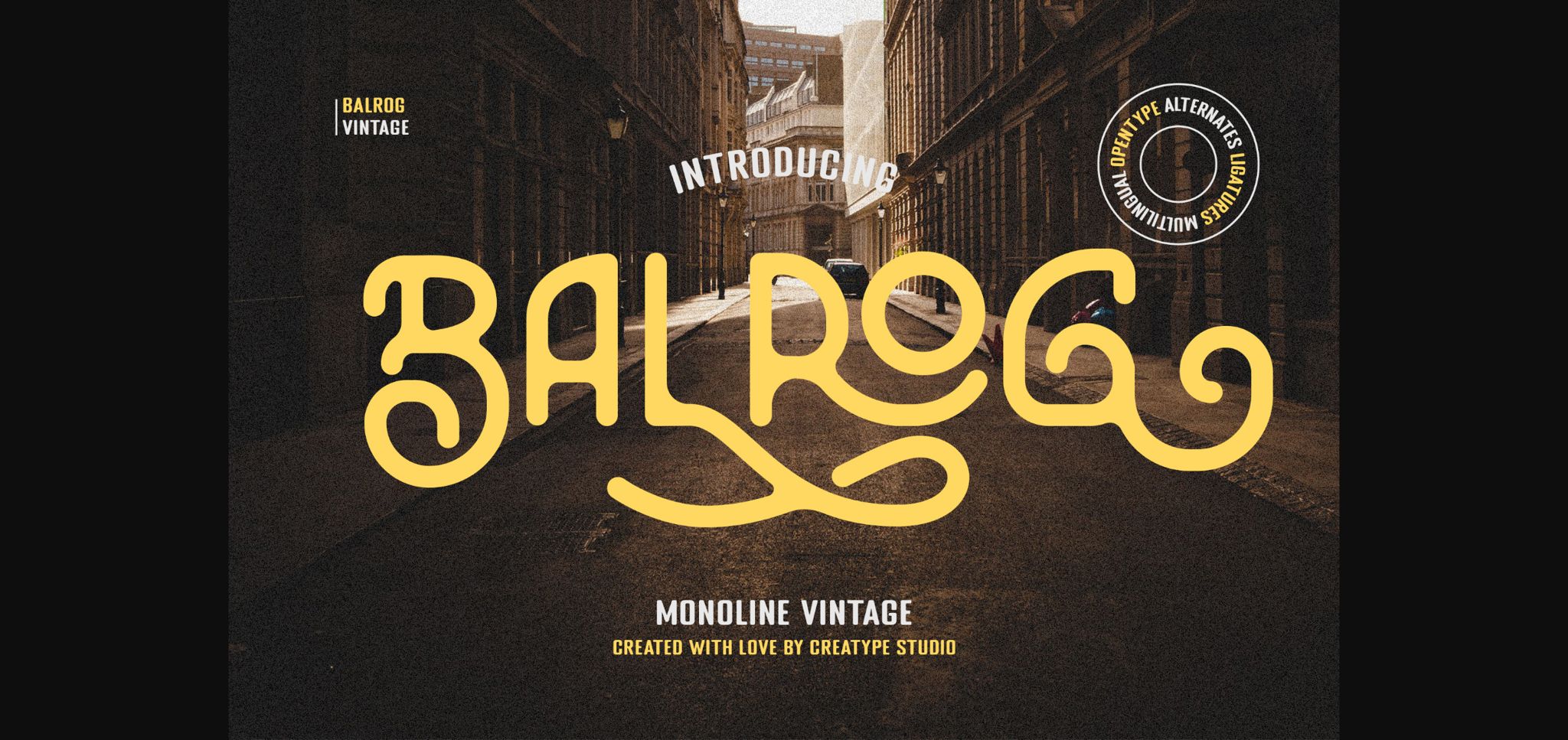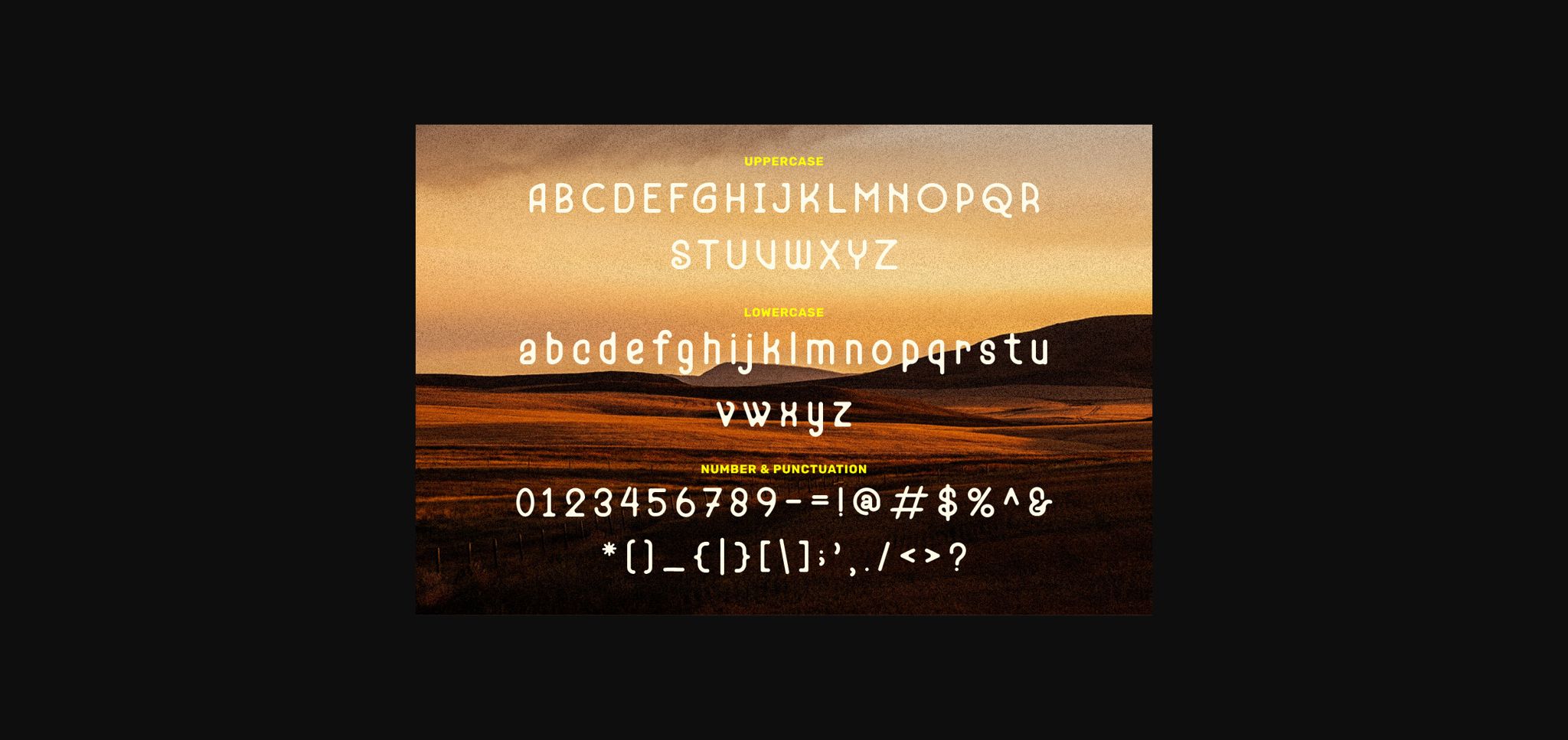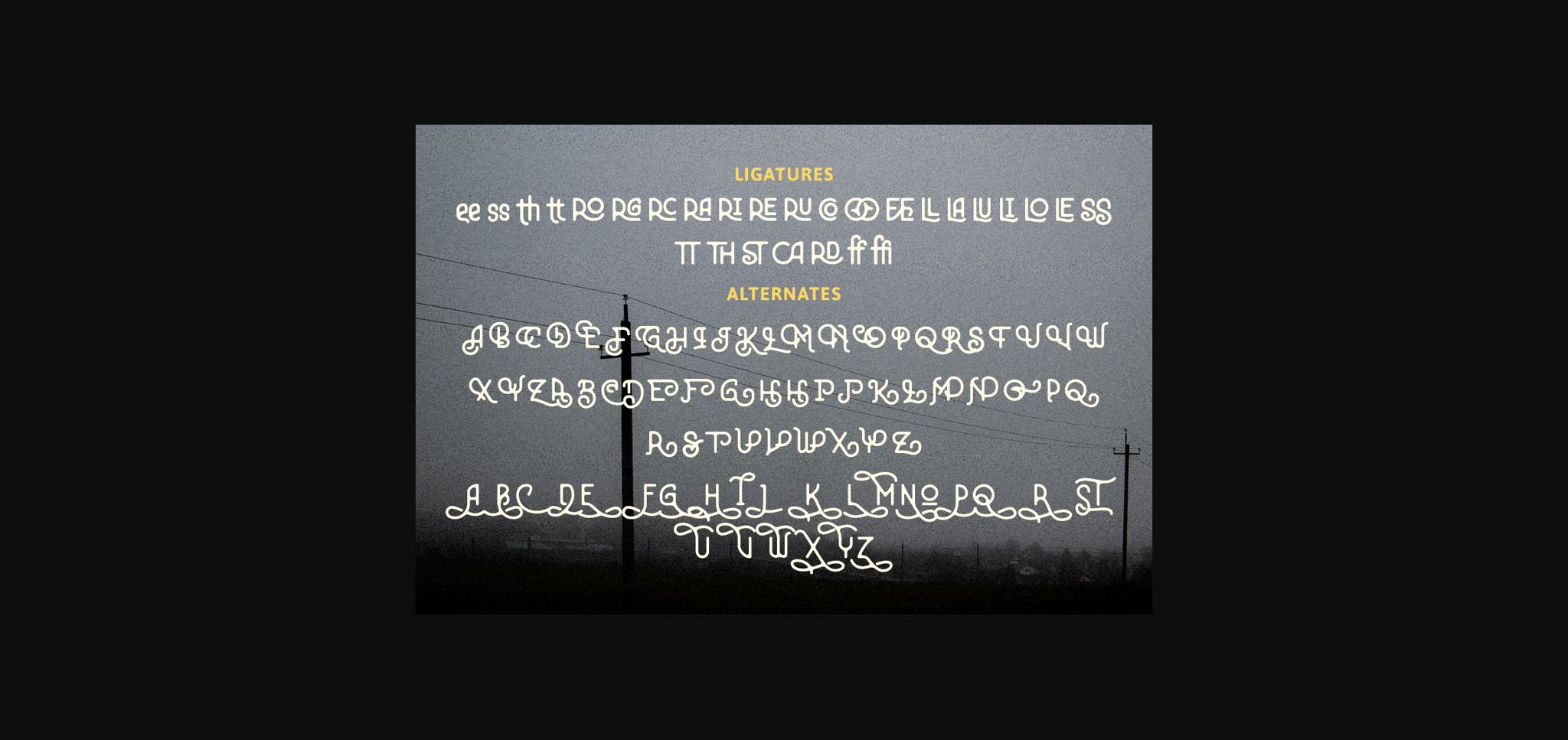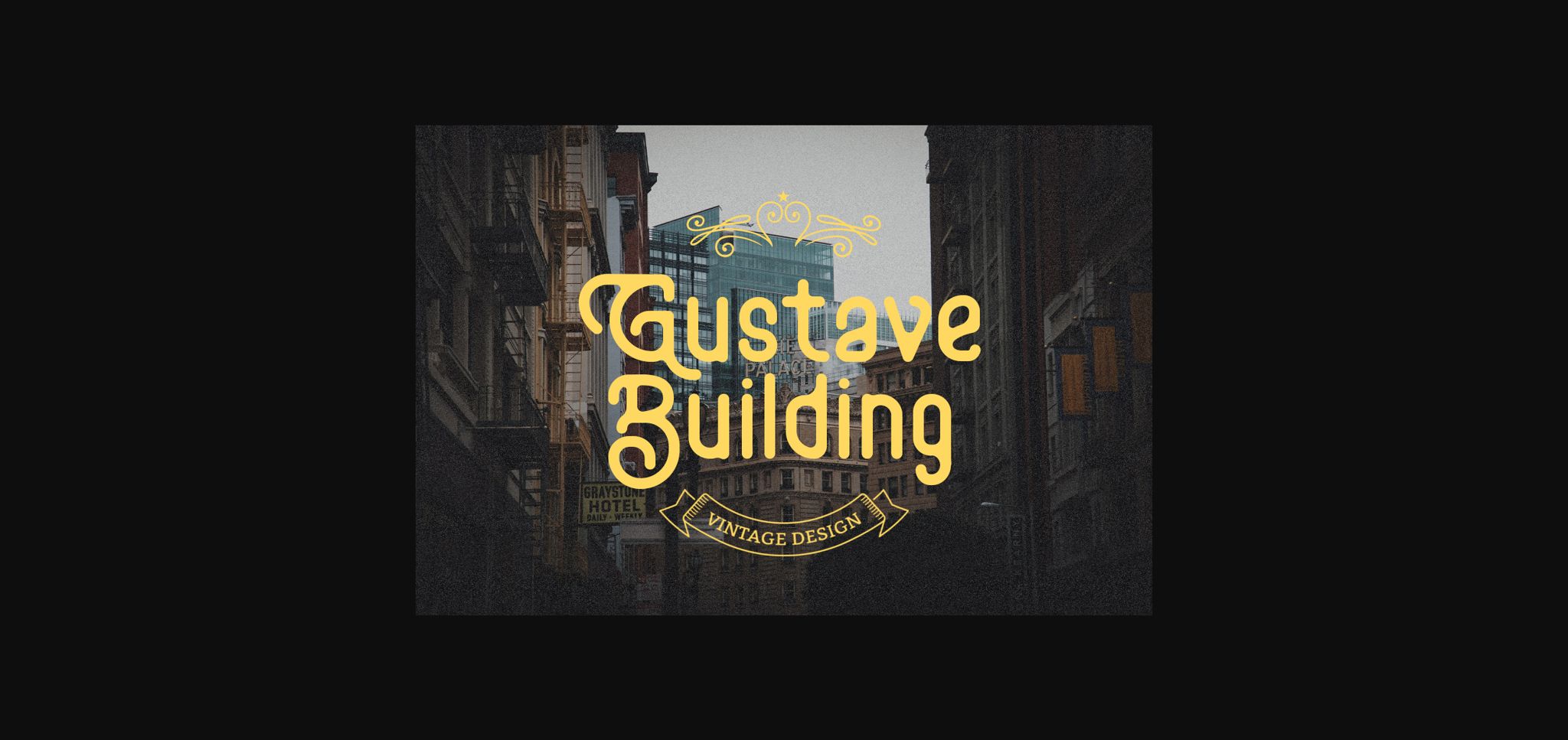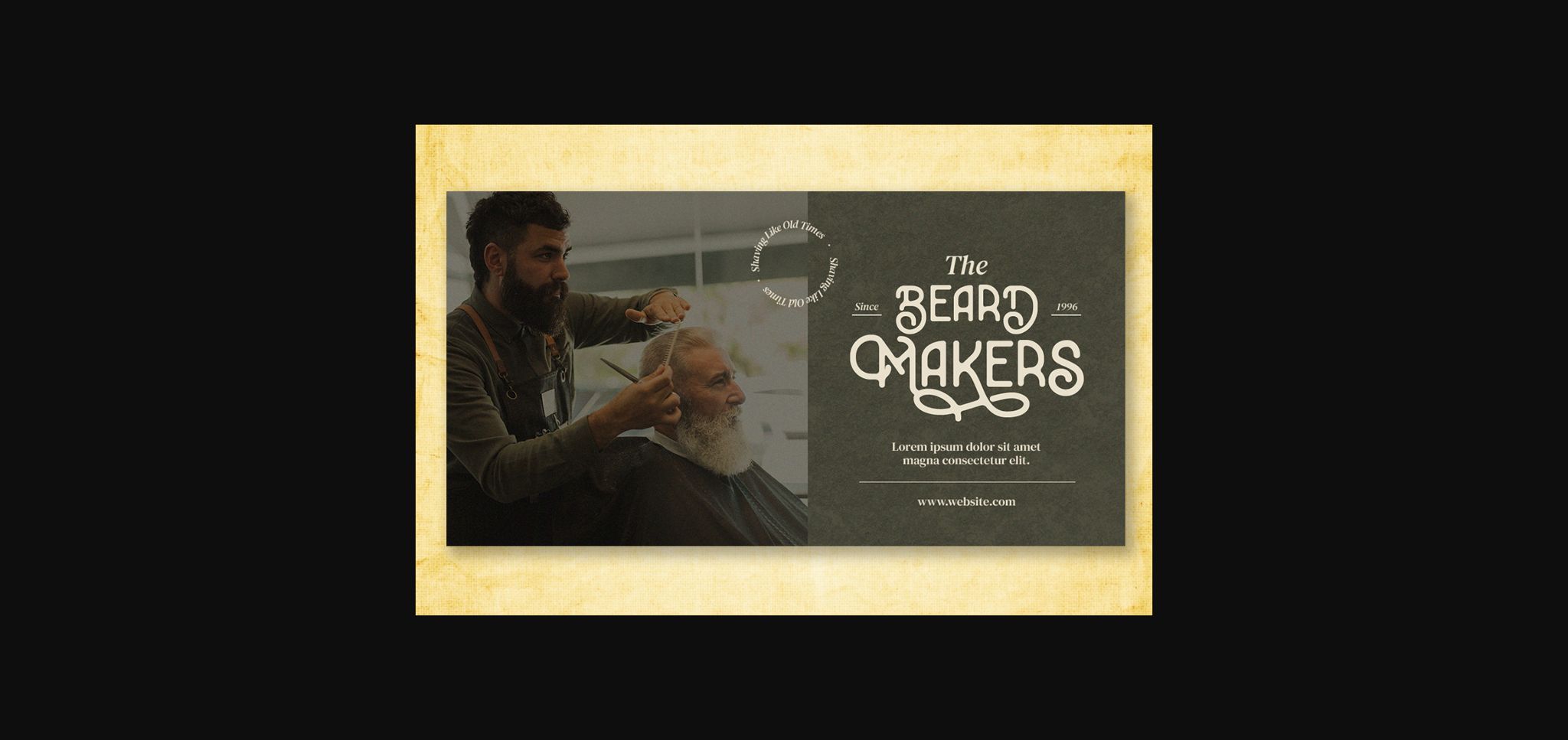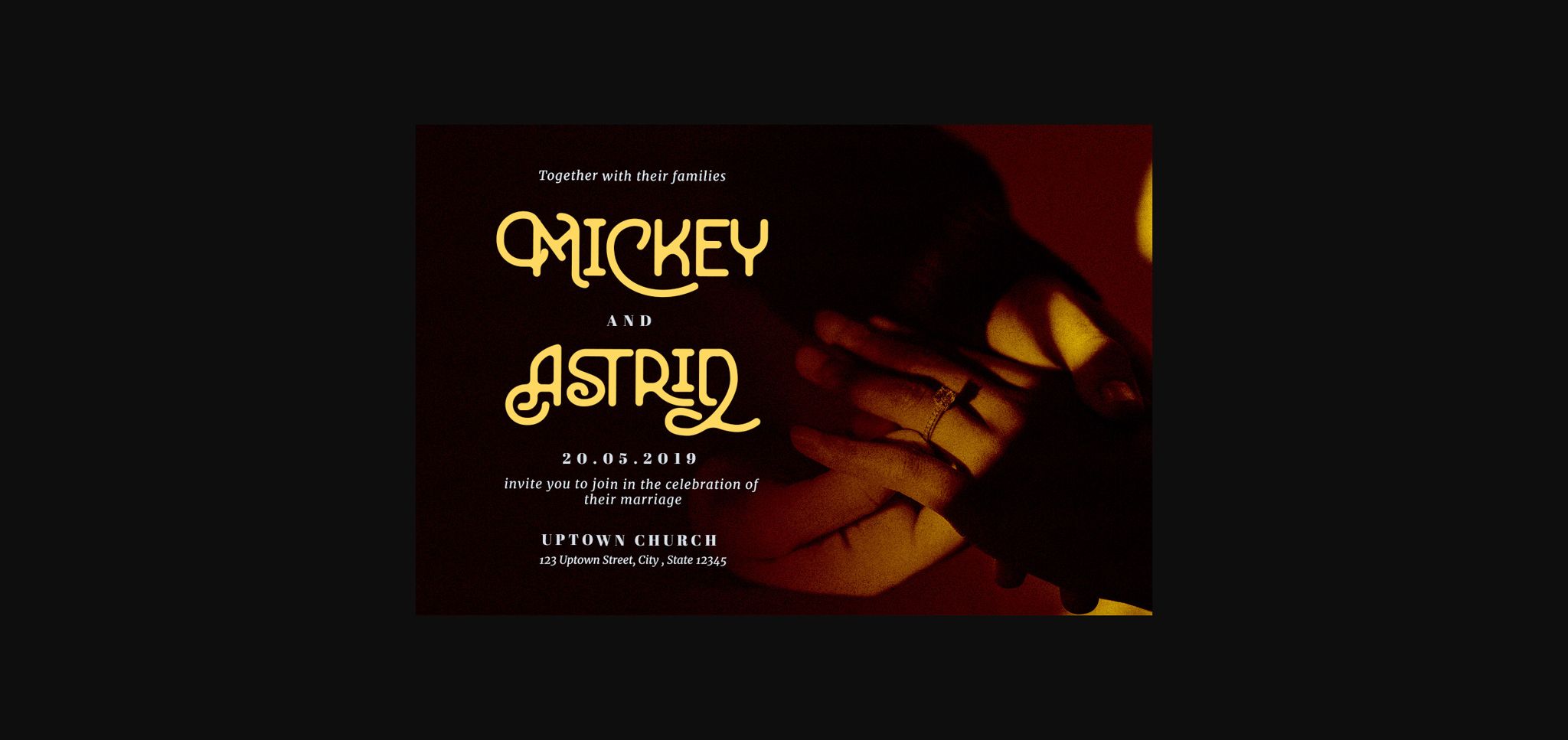
About Balrog Font
The combination of rounded details and a strong look gives a friendly and vintage vibe. That’s what Balrog is. Balrog is perfect for branding projects, logos, wedding designs, social media posts, advertisements, product packaging, product designs, labels, photography, watermark, invitation, stationery, or anything that requires a unique, retro accent. This font is PUA encoded which means you can access all the glyphs and ligatures with ease!